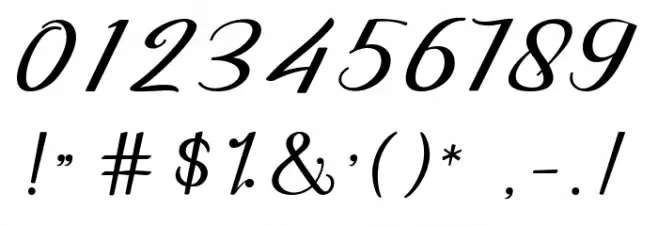
Just Sweet Font
Just Sweet Description
This elegant script font features flowing, cursive letters with a classic and sophisticated appearance. The uppercase letters are gracefully elongated with smooth curves, while the lowercase letters maintain a consistent, flowing style that enhances readability. The numerals are stylishly designed to match the overall aesthetic, and the special characters are crafted with the same attention to detail. This font exudes a sense of elegance and refinement, making it suitable for projects that require a touch of class and sophistication.
An elegant script font with flowing, cursive letters and a classic style from Regular fonts.
- Proposed Projects: Ideal for wedding invitations, elegant branding, greeting cards, and upscale packaging.
- Overall Style: Classic
- Use Case: Logos, Invitations, Decorative text